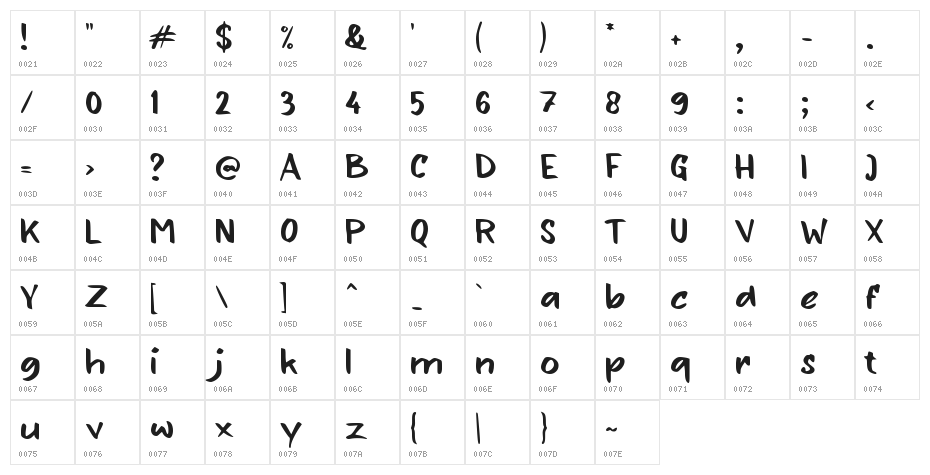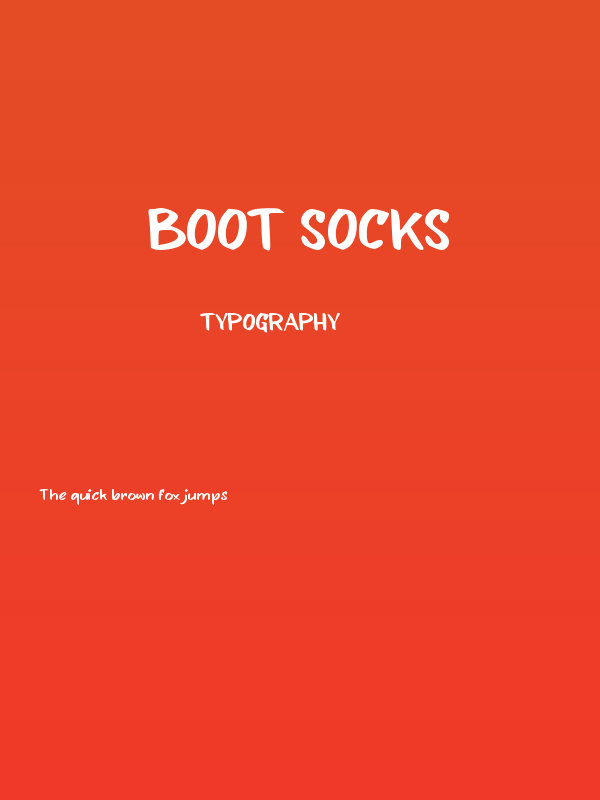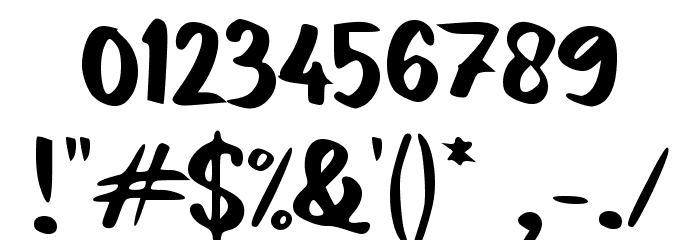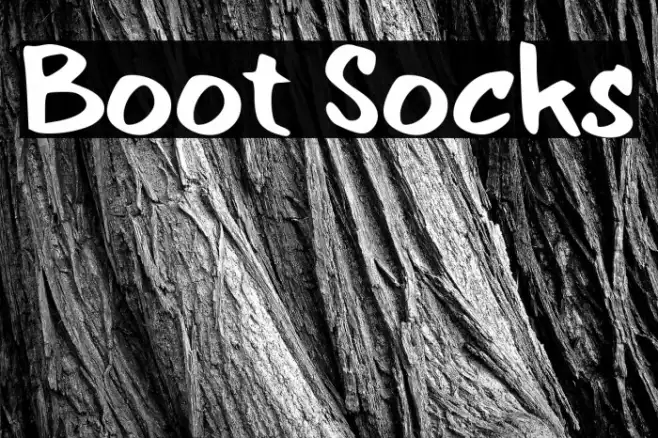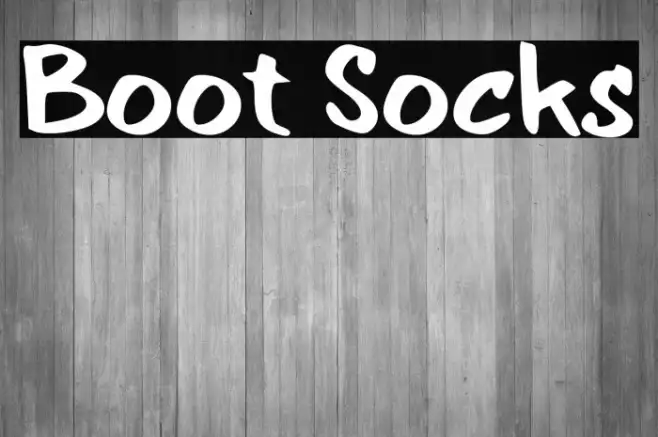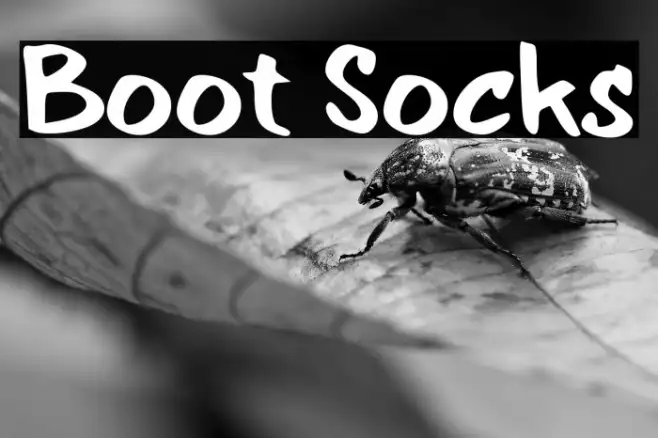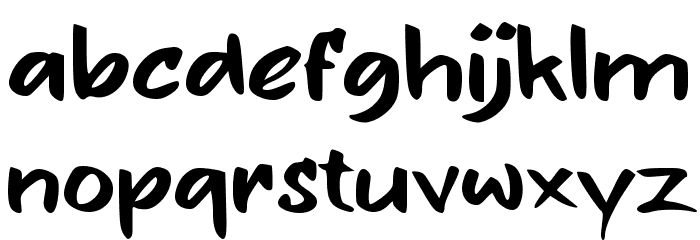
Boot Socks Font
Boot Socks Description
This font features a playful and bold handwritten style, characterized by its thick strokes and rounded edges. The letters have a casual, friendly appearance, making it suitable for informal and creative projects. The uppercase and lowercase letters are well-balanced, with a consistent flow that enhances readability. Numbers and special characters maintain the same playful aesthetic, ensuring a cohesive look across different text elements. The font's unique charm lies in its ability to convey a sense of fun and approachability, making it ideal for projects that aim to engage a broad audience.
| Use Case | Headlines, Logos, Social media graphics |
| Proposed Projects | Ideal for children's books, greeting cards, playful branding, and social media graphics. |